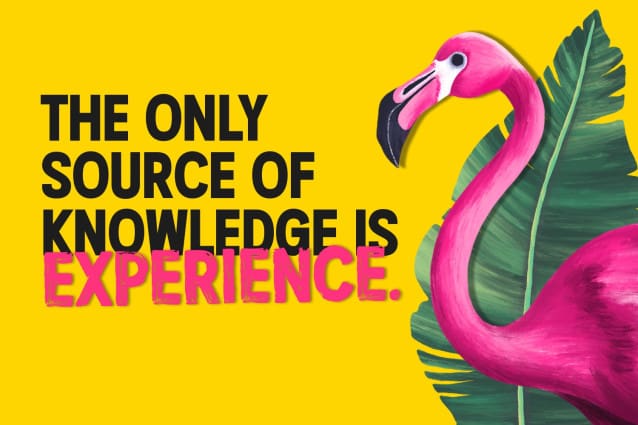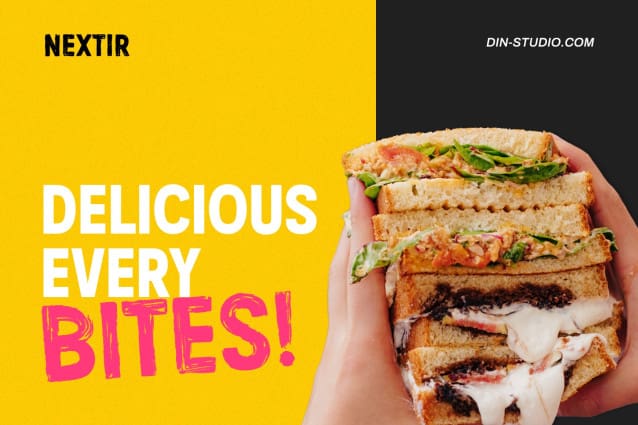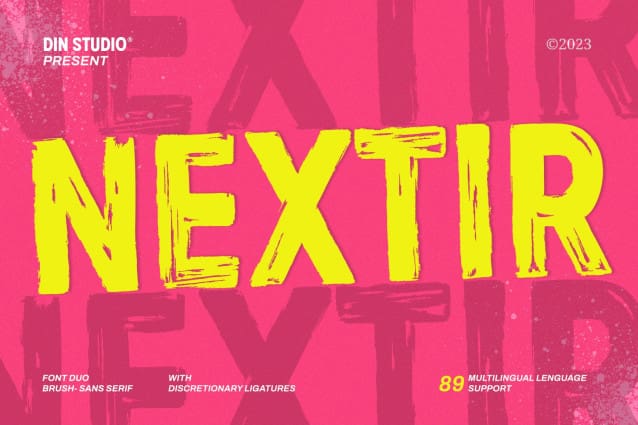
Nextir Brush Font
Nextir Brush Font is an extraordinary brush sans serif font that commands attention and redefines modern typography. Designed with large letters and a thick weight, its distinctive square letter shapes are the epitome of strength and contemporary style. What sets Nextir apart from the ordinary is its brush detailing. This unique blend of brush strokes and sans serif elements adds a layer of organic texture to the font.
The combination of large letters, thick weight, square shapes, and brush detailing creates a font that makes a striking statement with a contemporary edge. When you need a typeface that combines strength with artistic expression, Nextir Brush Font is the perfect choice to infuse your designs with boldness, modernity, and a touch of handcrafted elegance.